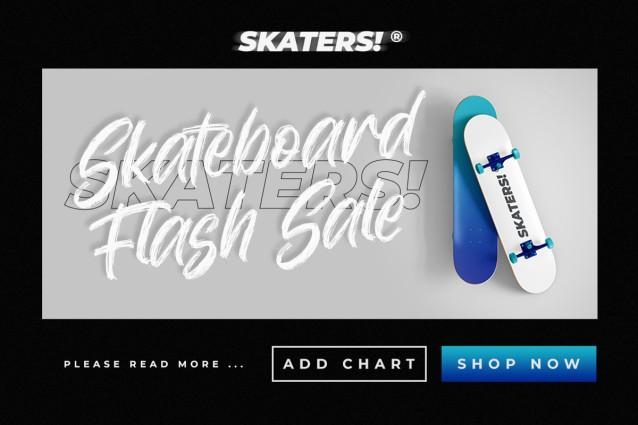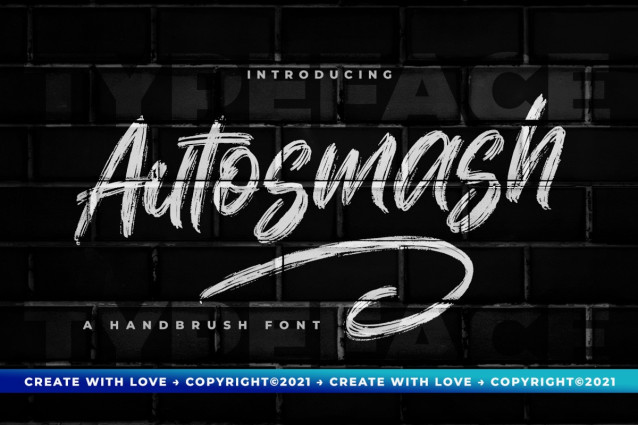
Autosmash Brush Font
Autosmash Brush Font is a lovely and brushed script font that exudes elegance and class. This font was particularly crafted for those who need a beautiful and refreshing look to their designs.